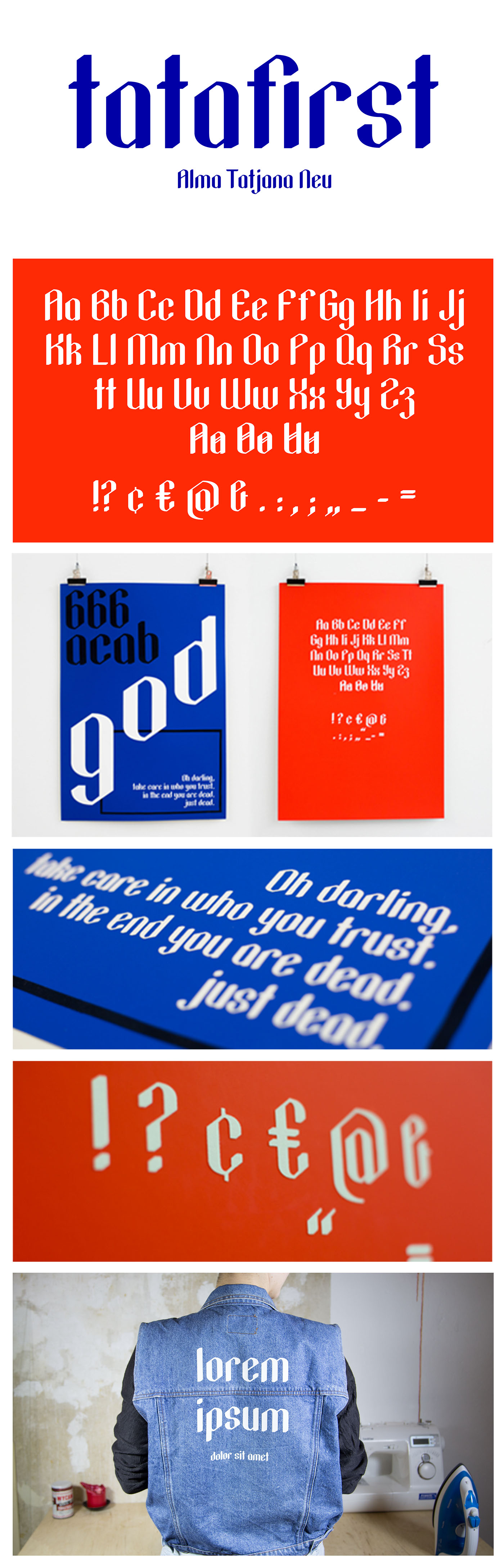
Tatafirst Font
A new free fonts, this is a unique font display. Introducing Tatafirst Font! Tatafirst designed and shared by tata tatze. This font is suitable for different design purposes. Headings, logos, packaging, children’s books and magazines, T-shirt prints!